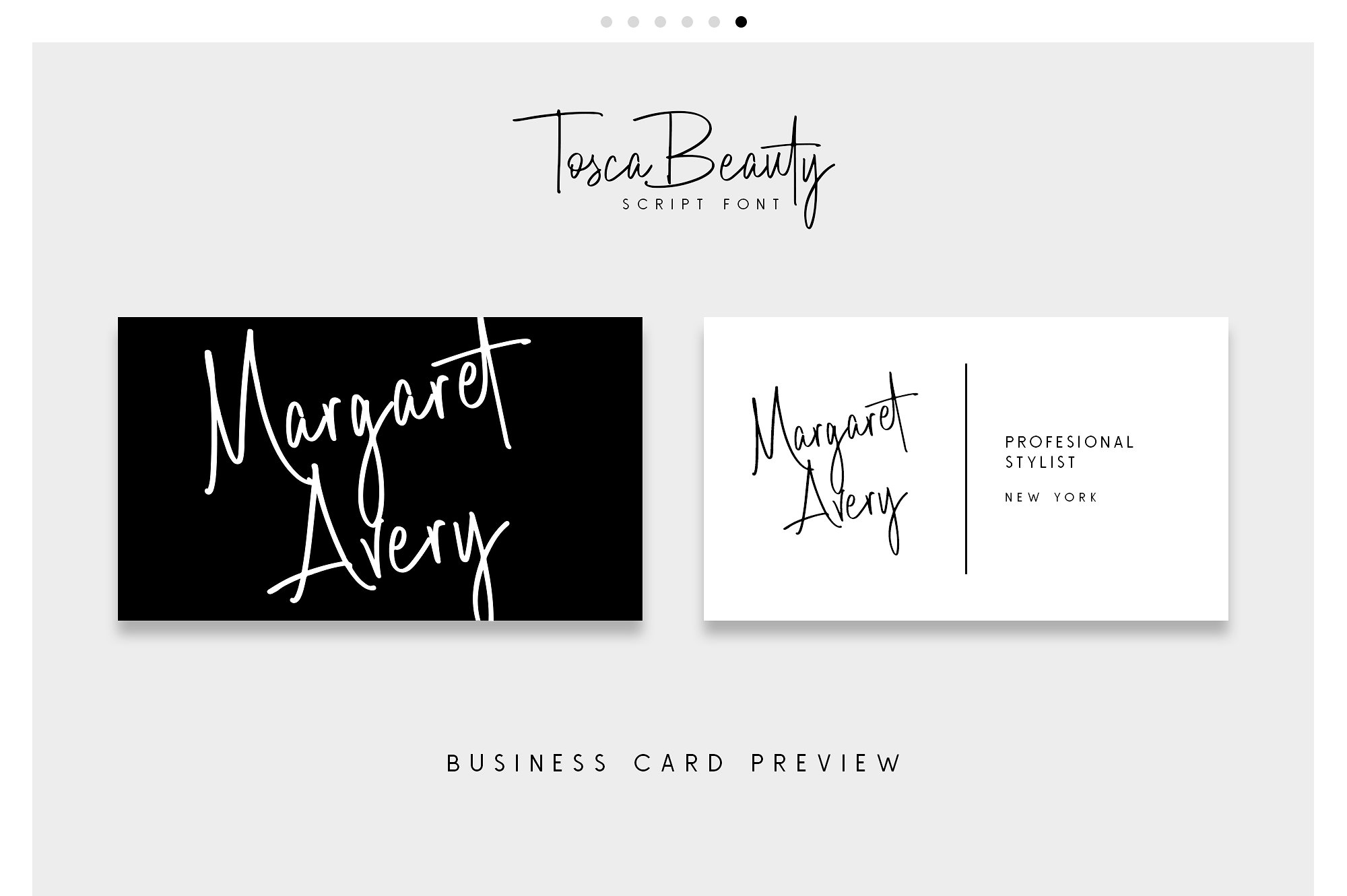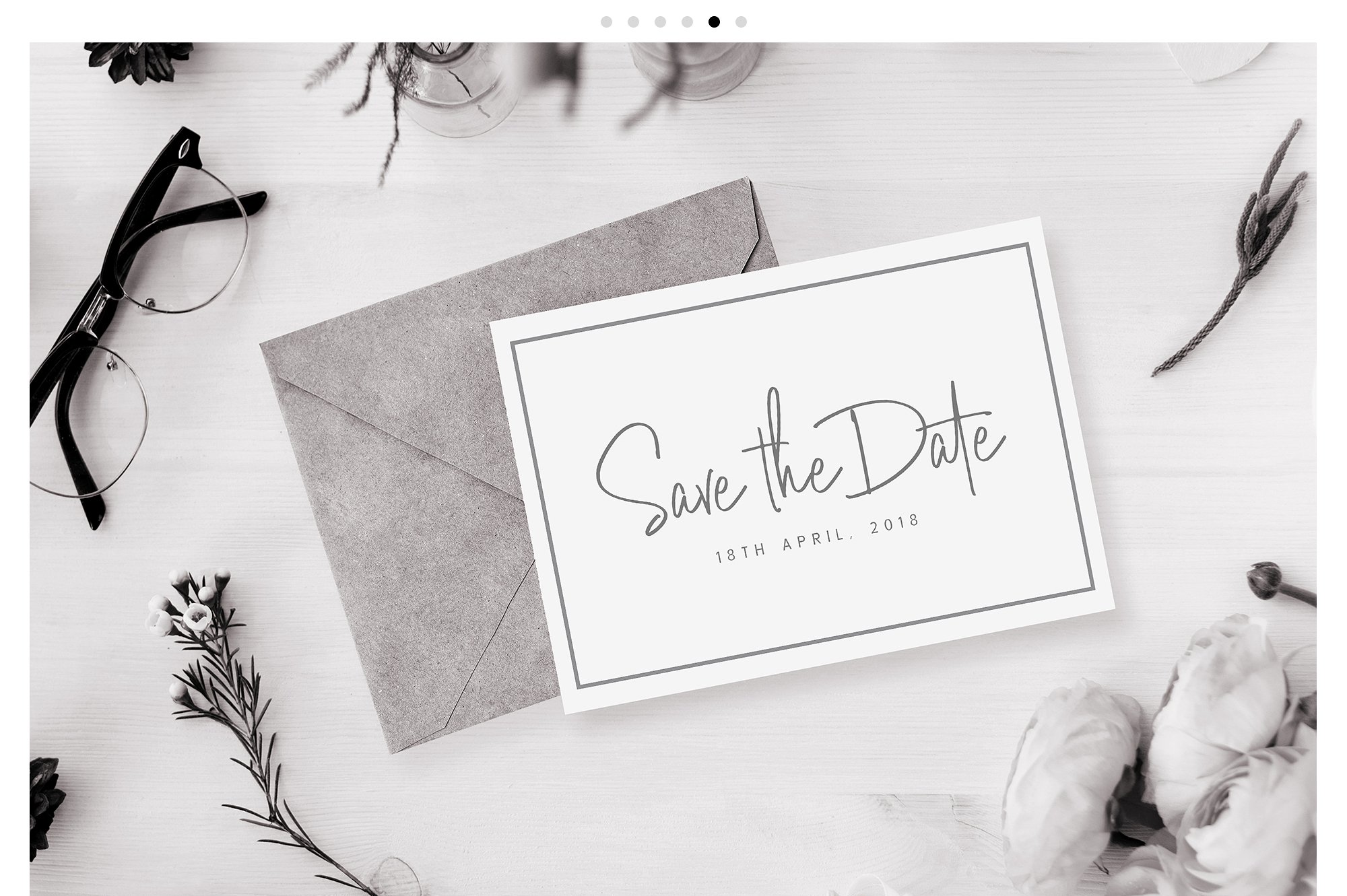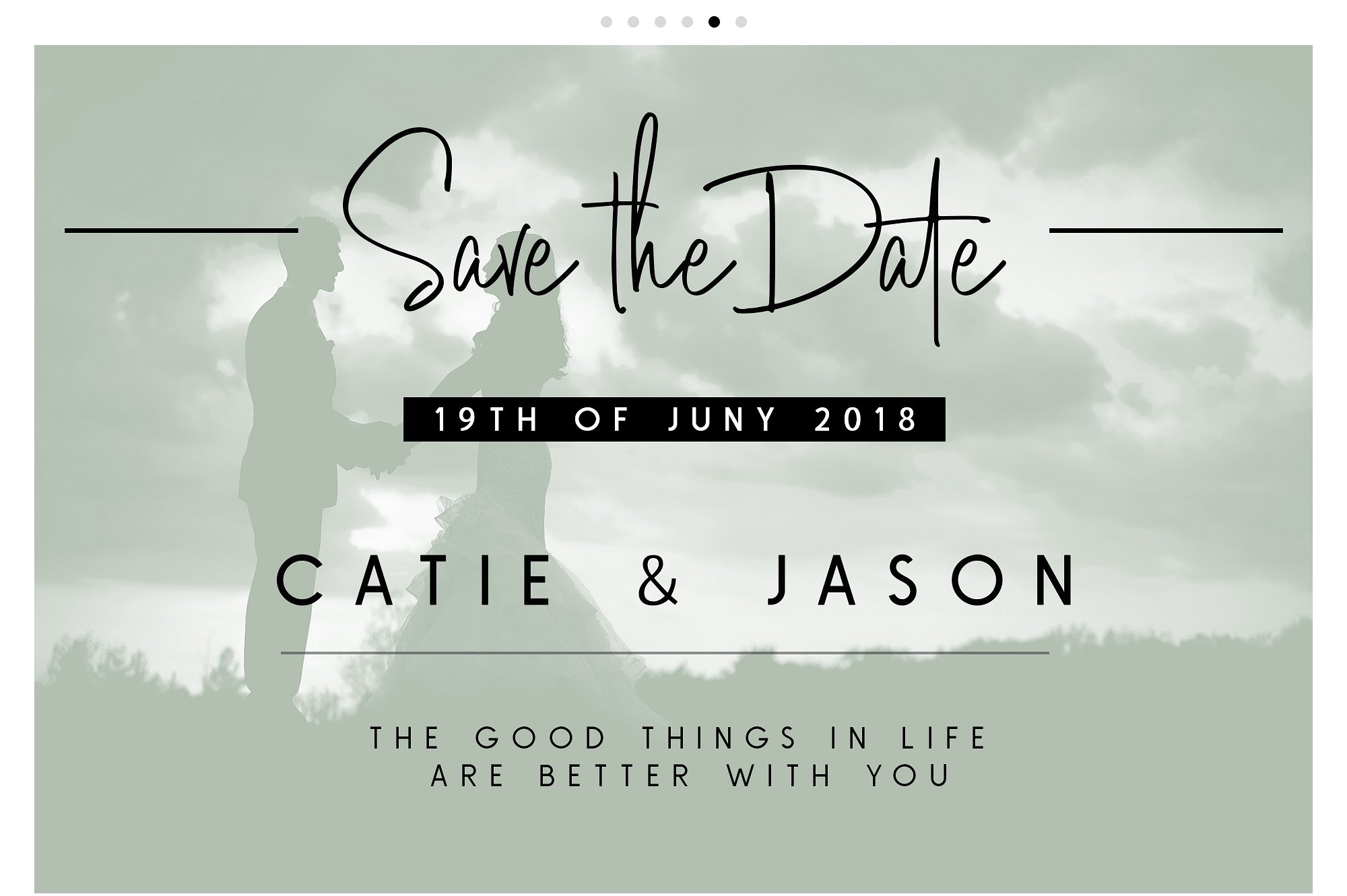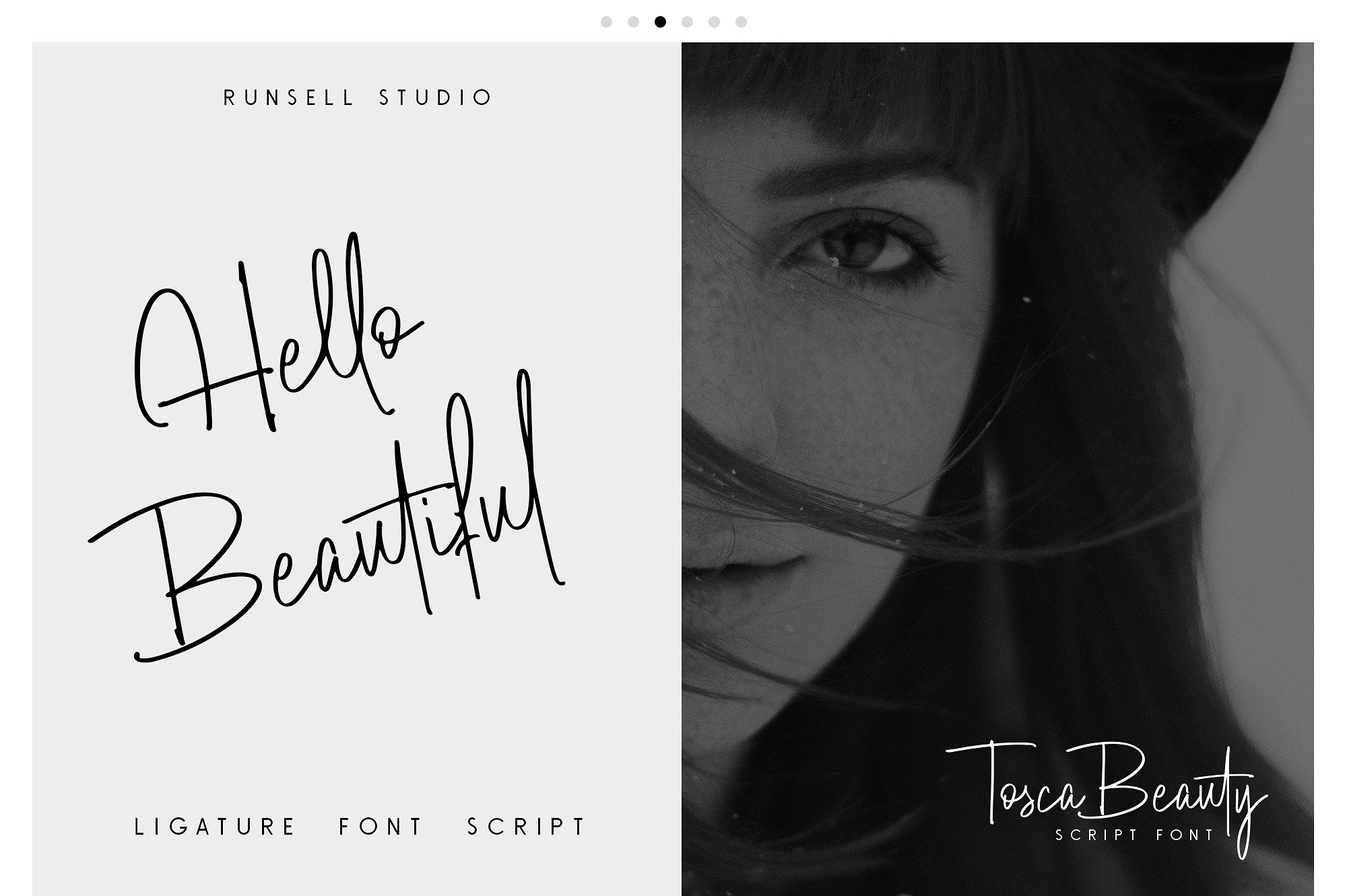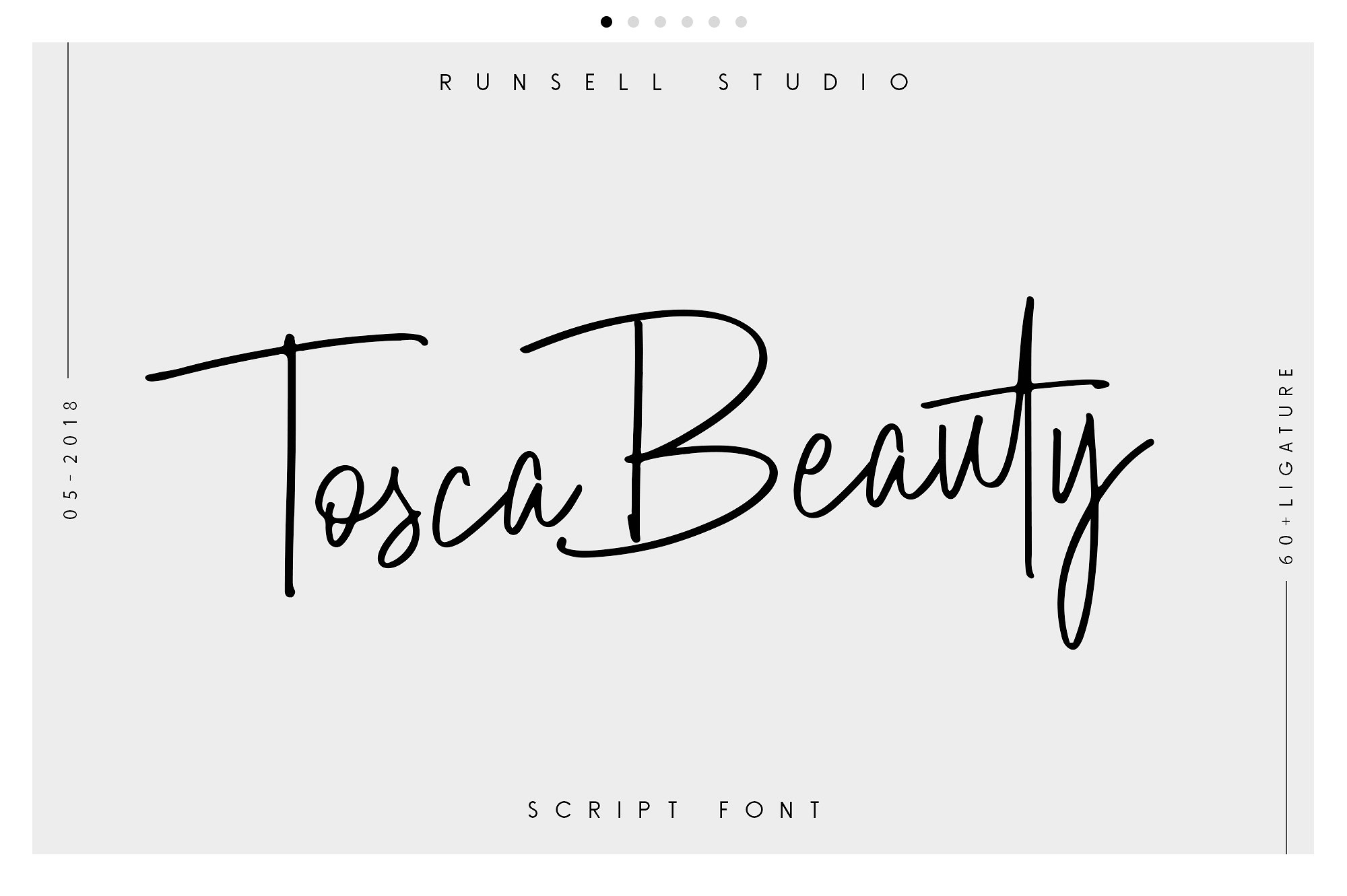
Tosca Beauty Script Font
Tosca Beauty – is an handwritten font created by Runsell Studio. Tosca Beauty – elegant singnature can make your design look authentic and handcrafted. This fonts suitable for this use in you for the signature, logotype, wedding invitation, quotes art, website header, packaging, branding, business card, fashion magazine and more.